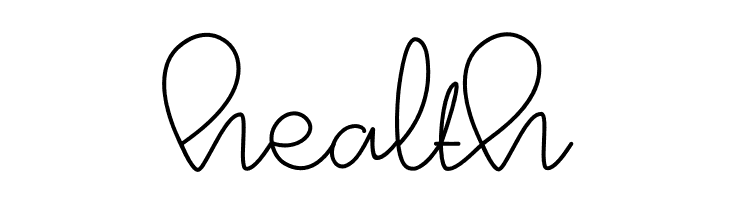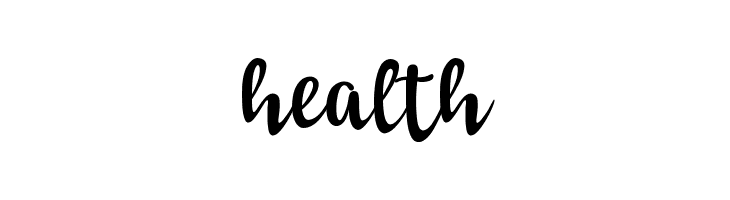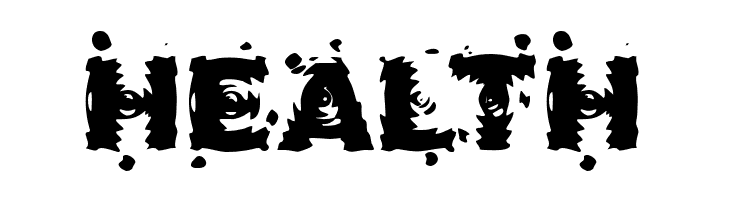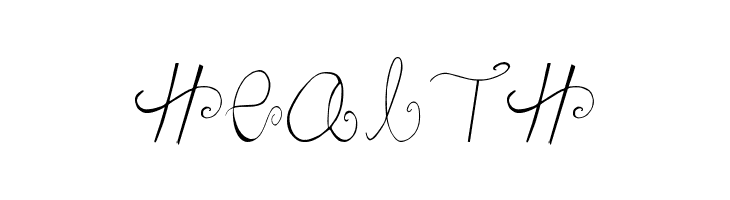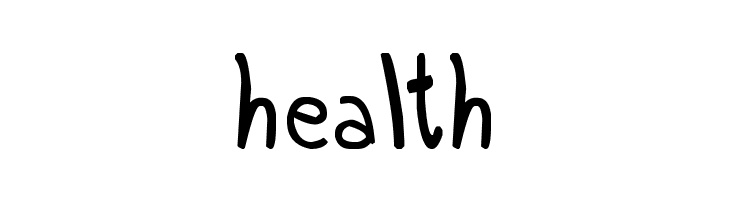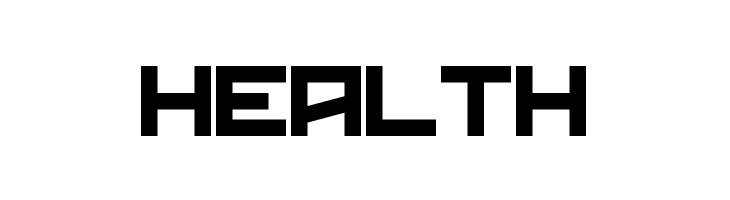
• Marlina
A bold, flowing script font with a modern, elegant style.
• Marrline Personal Use
An elegant and flowing script font with intricate loops and swirls.
• Marthane
A handwritten, cursive font with a natural and elegant flow.
• Marthane
A casual, handwritten font with a flowing, cursive style.
• Marthina
A dynamic, cursive script font with elegant loops and swirls.
• Martin Sans
A playful, handwritten font with irregular, dynamic strokes.